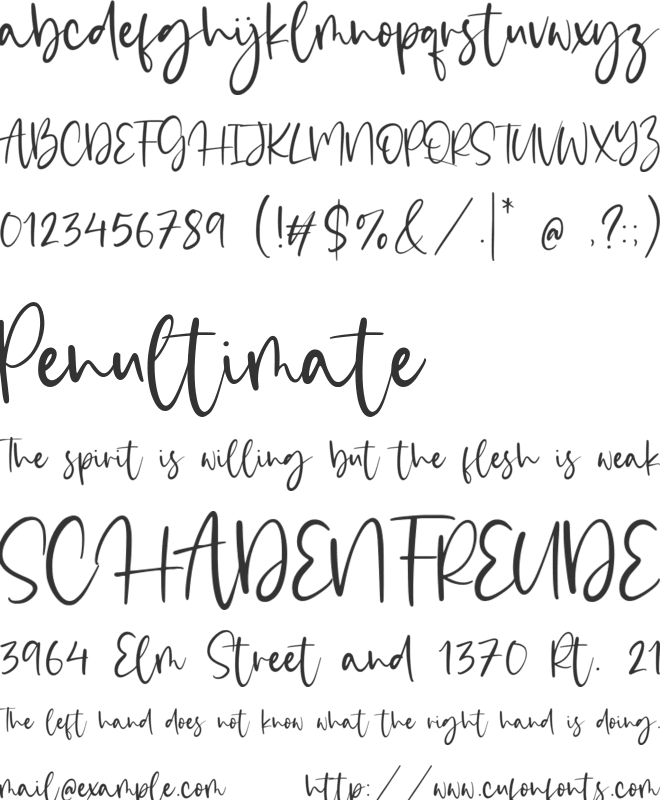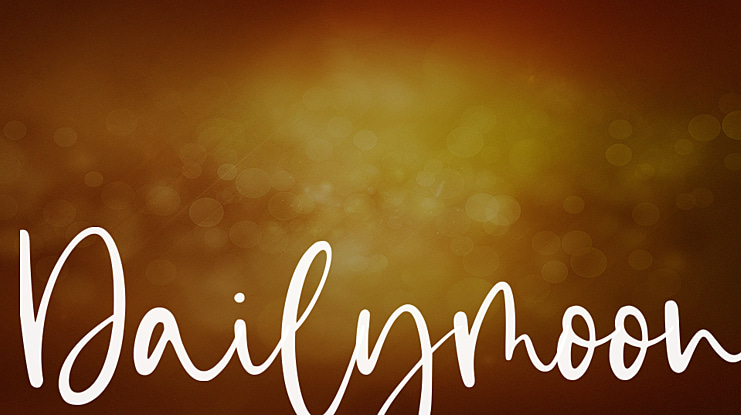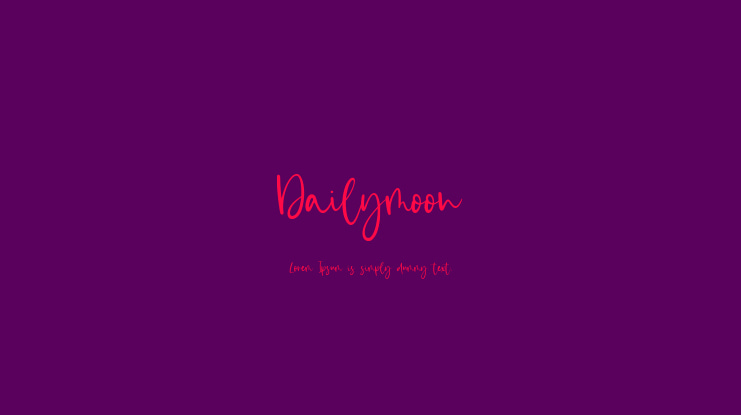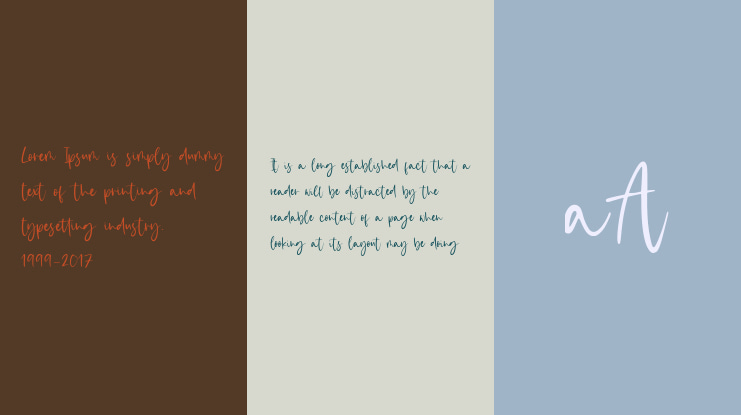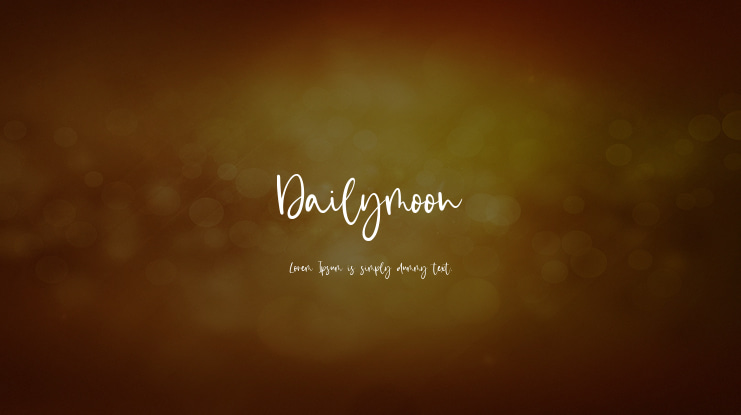
Dailymoon Font
Introducing by Letterative Studio : Daily Moon Font
Daily Moon is a Modern Handwritten Font.
Daily Moon is perfect for product packaging, branding project, megazine, social media, wedding, or just used to express words above the background.
Daily Moon also multilingual support